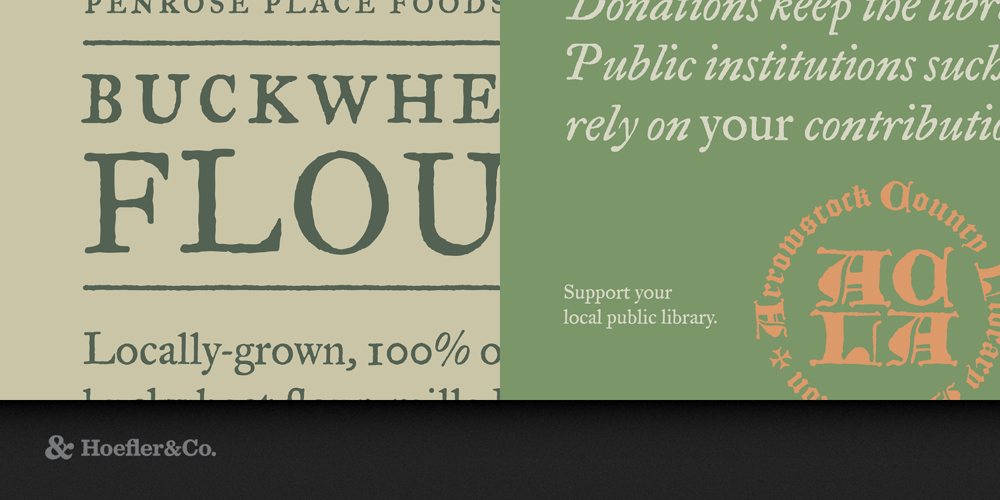
Historical Allsorts Font Family was designed by Jonathan Hoefler and published by Hoefler & Co.. Historical Allsorts contains 4 styles and family package options. The Historical Allsorts were designed by Jonathan Hoefler in 1992. An experiment to digitally record the shapes of typographic artifacts, rather than interpret them through new drawings, the collection salutes three milestones in early typography: a textura, a civilité, and a set of ‘old style’ book faces from collection known as The Fell Types. The Historical Allsorts first appeared in the pages of Rolling Stone in 1994. English Textura. The English Textura records the blackletter and uncial capitals cut by Henric Pieterszoon Lettersnijder some time before 1492. The original textura was made in the ‘English’ size, roughly equivalent to a modern 14 point; the uncials were created in the ‘great primer’ size, akin to 18 point. Civilité. The Civilité is the St. Augustin Lettre Francoise of around 1562, a splendid interpretation of a French secretary hand cut in type by Robert Granjon, the greatest virtuoso of typography’s golden age. The original type was made in the ‘St. Augustin’ size, about 14 point. The Fell Types. ‘The Fell Types’ are a collection of typographic materials assembled for the Oxford University Press in the late seventeenth century by Dr. John Fell. These typefaces record the ‘Great Primer’ book faces (roughly 14 point) in roman and italic, cut by Peter de Walpergen before 1693. The Fell Types connect the seventeenth century ‘old style’ types created on the European continent, and English old styles of the Enlightenment.